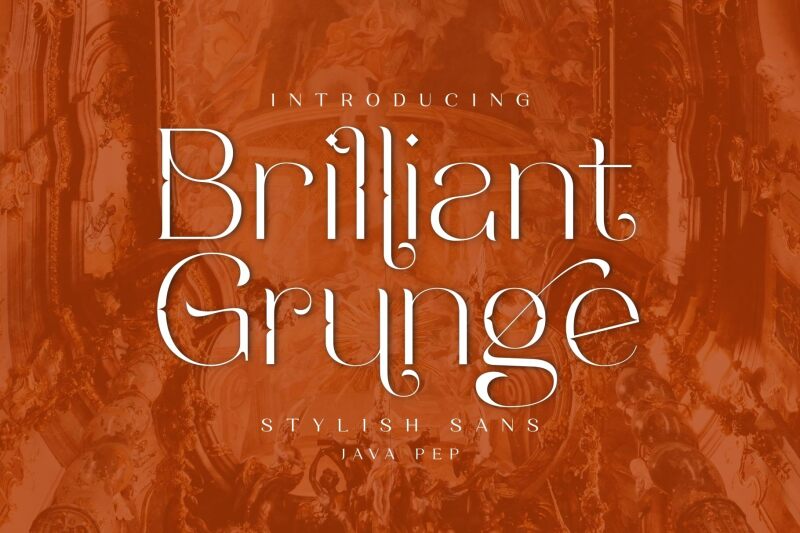
Brilliant Grunge Bold Italic
Brilliant Grunge is a captivating sans-serif font that exudes a raw, gritty aesthetic. Its bold yet graceful letterforms emanate a sense of rugged elegance, making it a versatile choice for various design applications.
The font's distinctive italic slant and textured, grunge-inspired finish lend it an alluring, edgy character, while its excellent legibility ensures easy readability across print and digital mediums. Brilliant Grunge's bold presence and striking visual impact make it a standout option for headings, logos, and eye-catching typographic treatments.
Its versatility extends to editorial design, branding, and even digital interfaces, allowing designers to infuse their work with a unique, impactful flair.